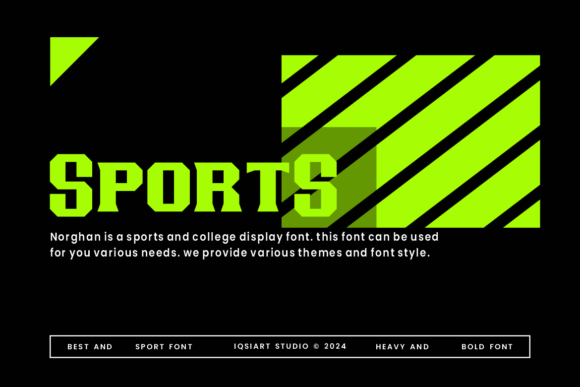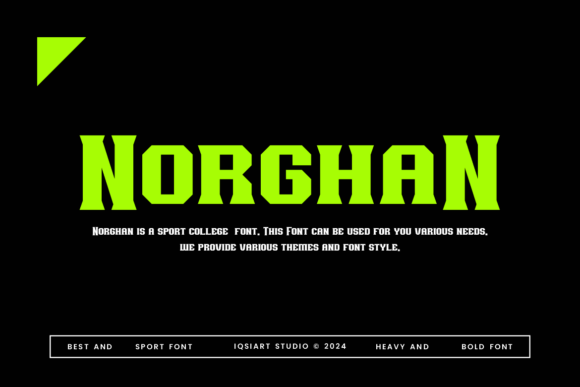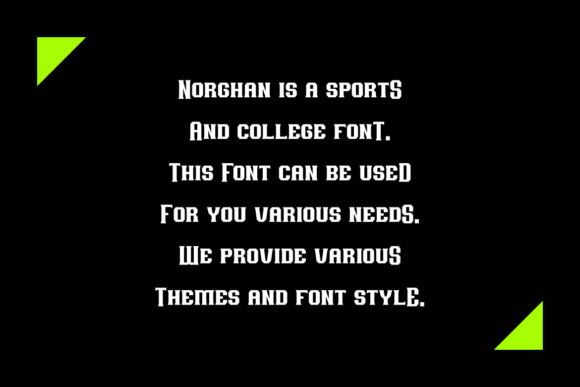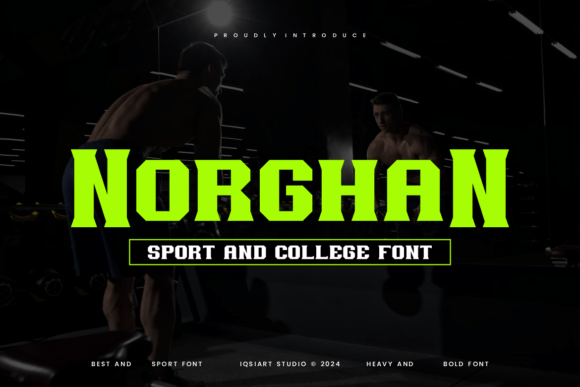
Introduction to Norghan Font
Norghan is a classic serif font inspired by sports and college designs.
Its bold, strong letters give it a timeless and athletic look, making it great for school logos, team names, and sporty projects .